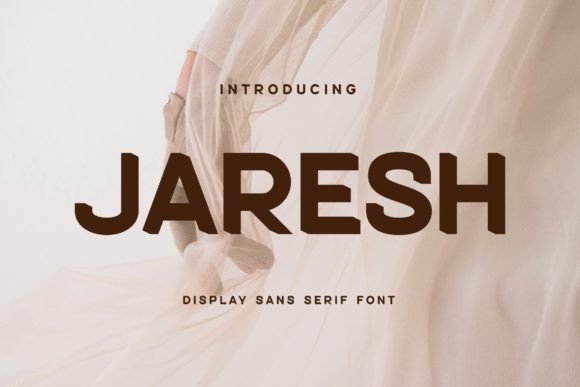
Venture into the realm of academic excellence with Jaresh Font, a sans serif masterpiece crafted to empower your research posters with unrivaled clarity and sophistication. A font family born from the fusion of minimalist aesthetics and academic rigor, Jaresh Font is your gateway to crafting captivating presentations that leave a lasting impression.
Unleash the boundless potential of Jaresh Font, seamlessly adaptable to a myriad of academic endeavors. From scientific expositions to historical narratives, its versatile nature effortlessly conforms to your unique storytelling style. Let your ideas take center stage, adorned in the elegance of Jaresh Font, as they captivate your audience with their brilliance.
Jaresh Font's meticulously designed characters exude precision and clarity, ensuring your research findings shine with unparalleled legibility. Its clean lines and balanced proportions provide a visual canvas that complements the depth of your scholarly pursuits. Embrace the allure of simplicity, allowing your content to take precedence, unencumbered by ornate embellishments.
With Jaresh Font as your ally, transcend the boundaries of traditional academic presentations. Craft posters that transcend the mundane, captivating your audience with a symphony of visual allure and intellectual depth. Ignite their curiosity, compel them to engage with your research, and leave an indelible mark on their minds.
Step into the spotlight of academic excellence, armed with Jaresh Font, your secret weapon for crafting research posters that command attention and inspire admiration. Its intuitive design empowers you to effortlessly convey complex concepts, transforming your posters into captivating narratives that resonate with your audience.